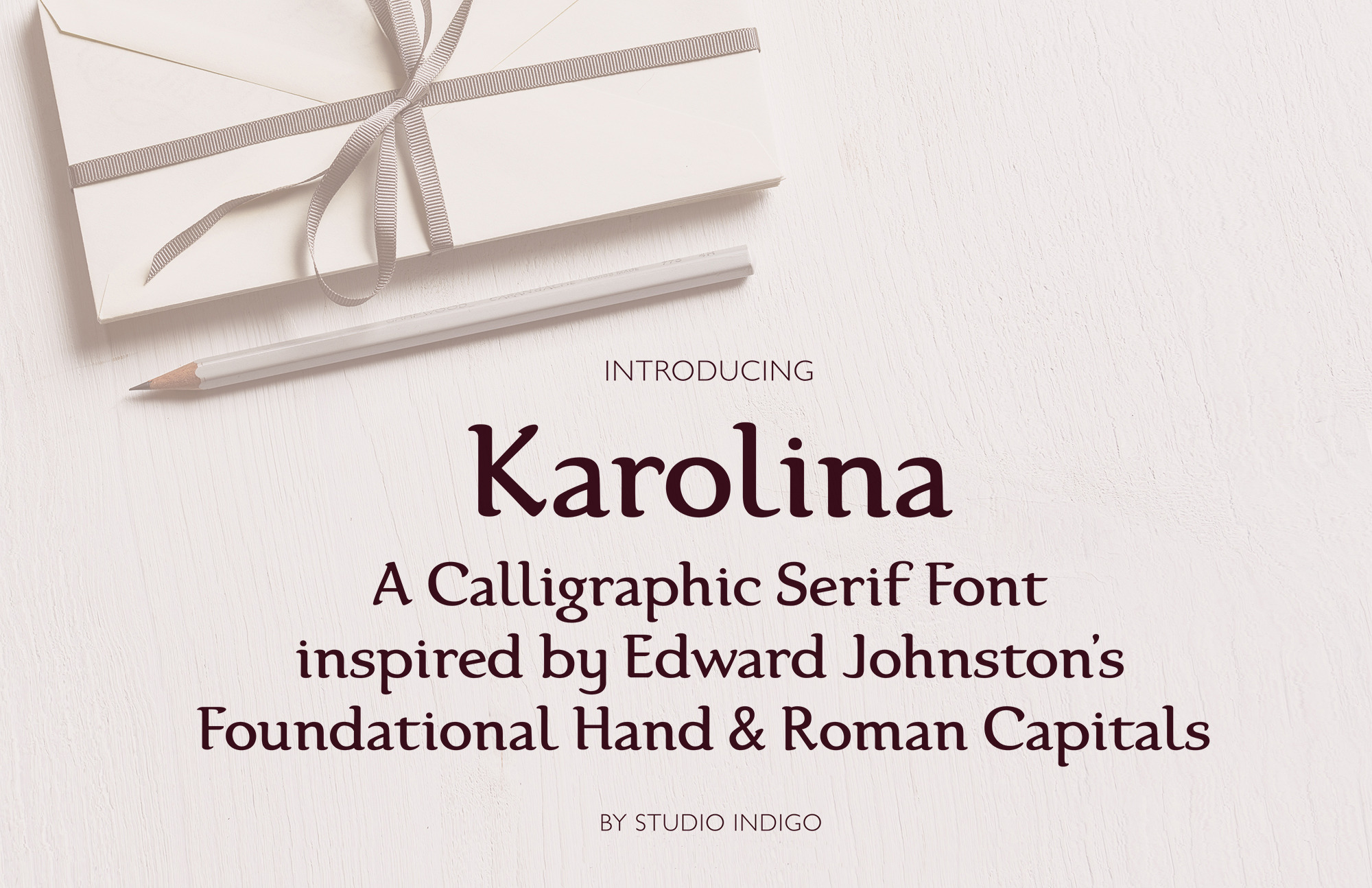
Karolina Serif font
Karolina is a calligraphic serif font. It is inspired by Edward Johnstons (1872–1944) calligraphy and the foundational hand (which was based on the carolingian letters – and therefore the name Karolina). The Uppercase letters are based on the perfect proportioned roman capitals. Karolina is a classic and clean typeface with smooth shapes that will give an elegant touch to your projects. It is suitable for formal use and works well both for headlines and as body text in smaller sizes.
- Uppercase serif capitals
- Lowercase serifletters
- Numerals, Oldstyle Figures and Punctuation
- Several Standard Ligatures